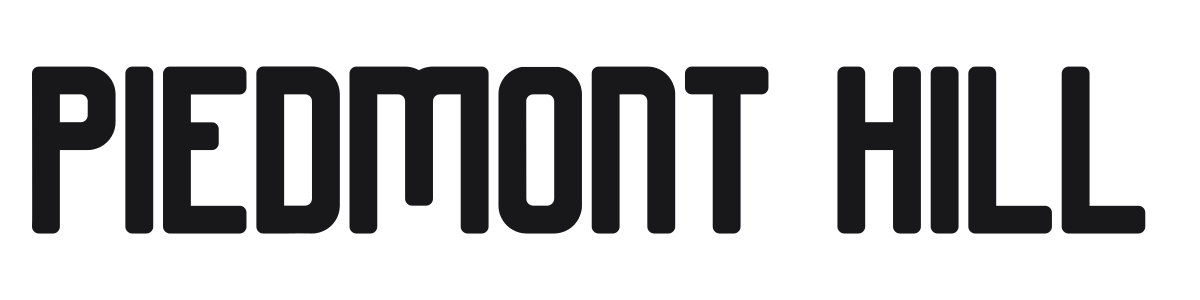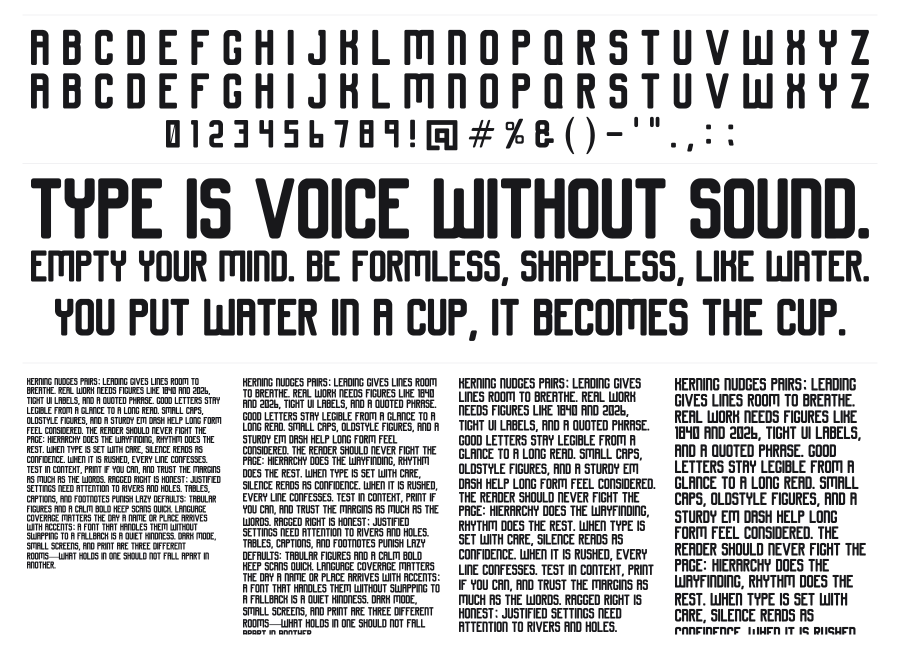
Piedmont Hill
Piedmont Hill is a bold, condensed geometric sans with heavy weight and subtly rounded interior corners that give it a distinctive retro-athletic character. The tight proportions and near-monoweight strokes create a strong, unified presence at headline sizes. It carries the energy of 1970s sports branding and industrial signage.